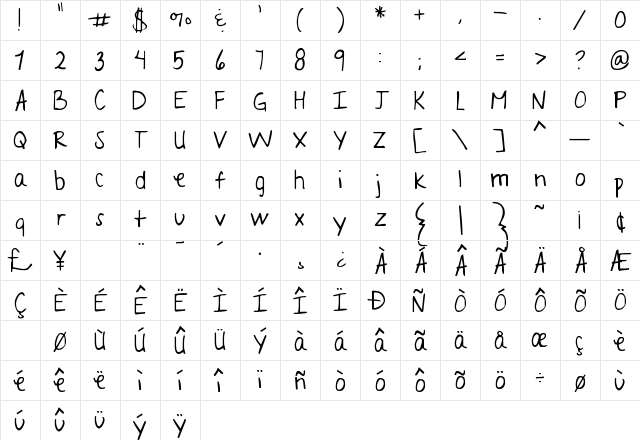
Complete A Year Without Rain Regular glyph index. Displaying only characters natively supported by A Year Without Rain Regular font.
A Year Without Rain is a composed and adaptable typeface that performs quietly and consistently across a wide range of design contexts.